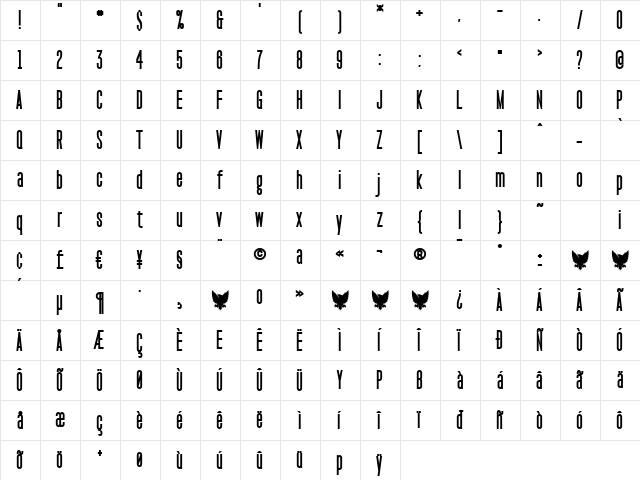
Pakt Condensed ExtraBold Font Preview
| Foundry | YouWorkForThem |
| Designer | Michael Cina |
Design Context for Pakt Condensed Typeface
Pakt Condensed takes a measured approach to typography — its balanced proportions and neutral character make it a reliable workhorse for both digital and print work. The heavy weight commands attention and anchors typographic hierarchies. The condensed width makes it efficient for tight spaces without sacrificing legibility.